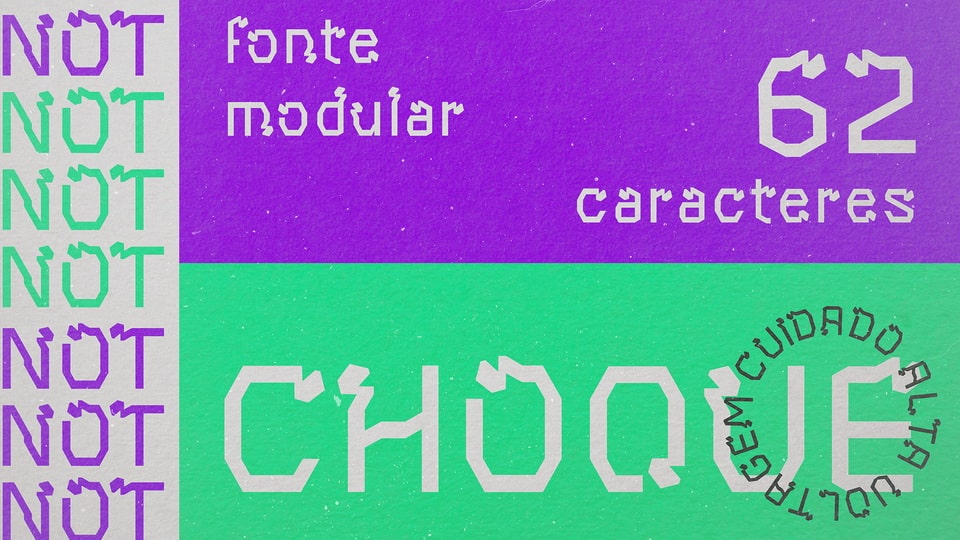
Feb 2, 2025DisplayChoque Font Choque is a modular geometric display typeface a with unique grid structure. Best for posters, graphic prints and typography compositions. Font DetailsDesigned by: Natália OliveiraWebsiteLicense: Free for commercial use Download Choque FontFile size: 8.46 KBCreated: February 16, 2025Updated: February 16, 2025 Download Explore related fonts Papercut Font Grozan Font Shared Writing Font Crossed Learning Font Rabios Font ST-Kidloco Font Crochets Font Tormek Font # Creative# Geometric